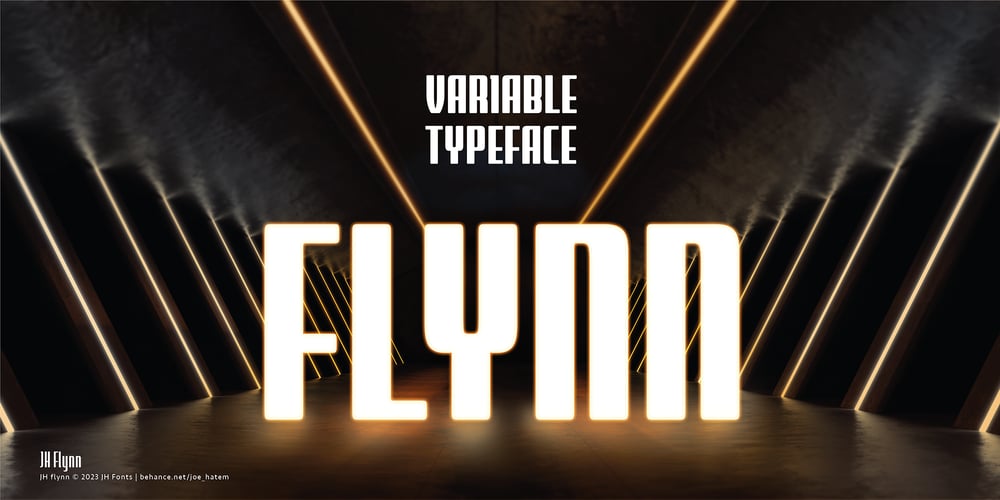
JH Flynn
JH Flynn font
JH Flynn Font Family was designed by Joe Hatem and published by JH Fonts. JH Flynn contains 9 styles and family package options. Jh Flynn is modern tall sans serif typeface; a variable type including eight weights: light / regular / medium / bold and the italics; Ideal for headlines, logo design, signage and short text paragraphs.